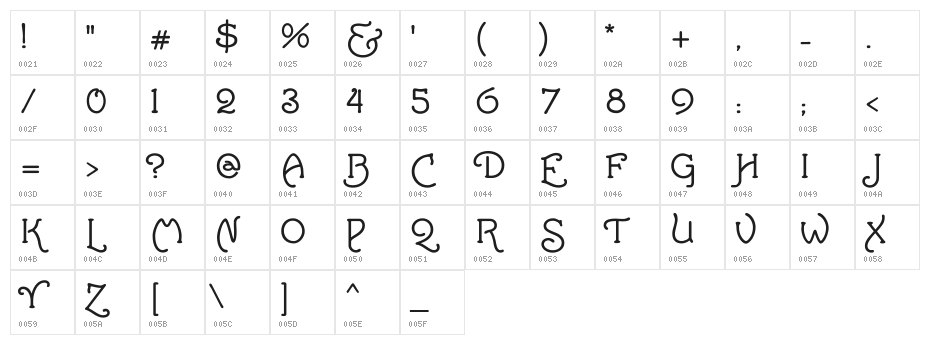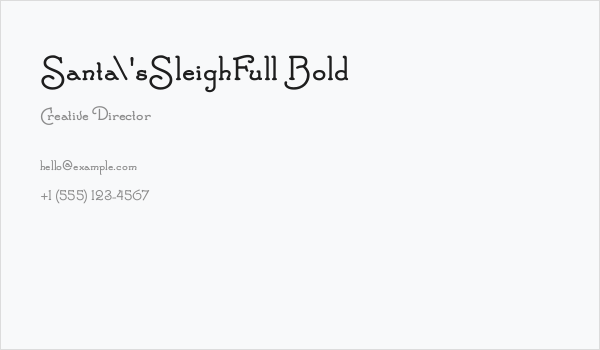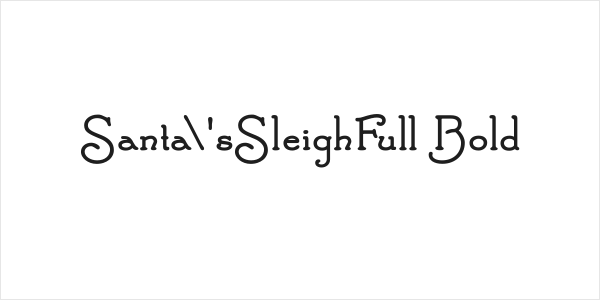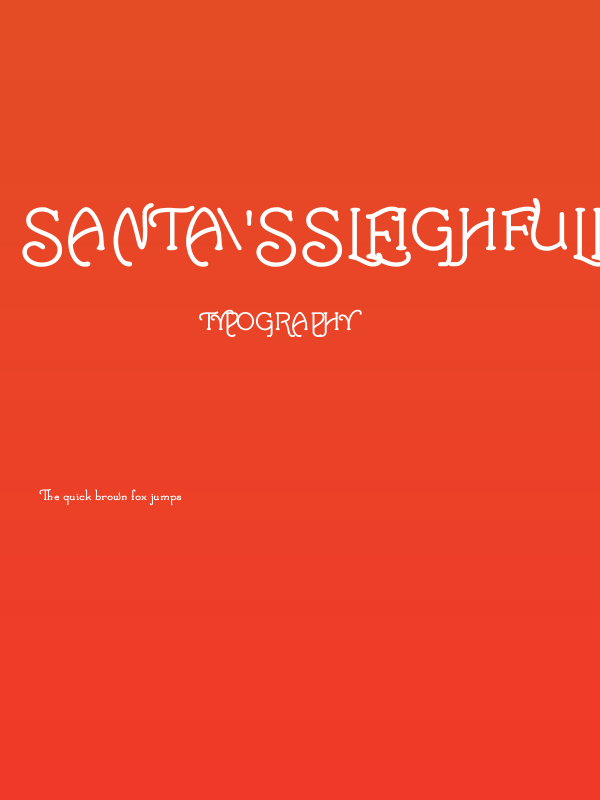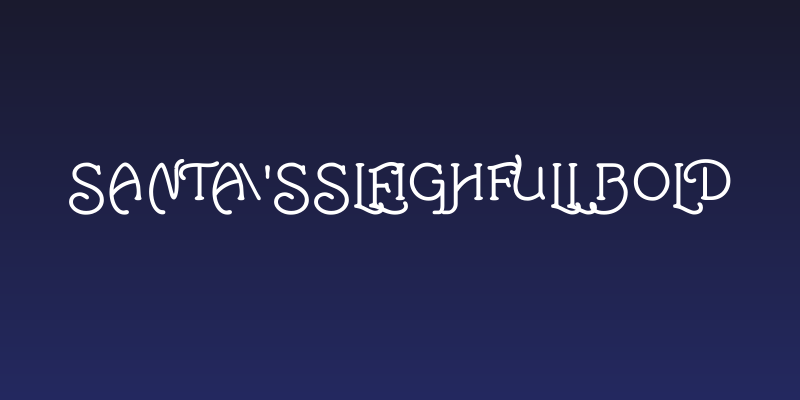
Santa'sSleighFull Bold Font
Santa'sSleighFull Bold Description
This font features a whimsical and playful design, characterized by its curly and decorative elements. The uppercase letters exhibit a unique flair with exaggerated curves and loops, giving it a festive and joyful appearance. The lowercase letters maintain a consistent style, with a slightly more restrained yet still lively form. Numbers and special characters follow the same decorative theme, ensuring a cohesive look across all glyphs. This font is perfect for adding a touch of fun and creativity to any project, making it ideal for holiday-themed designs or any context where a lighthearted and cheerful vibe is desired.
| Proposed Projects | Ideal for holiday cards, festive invitations, playful branding, and creative posters. |